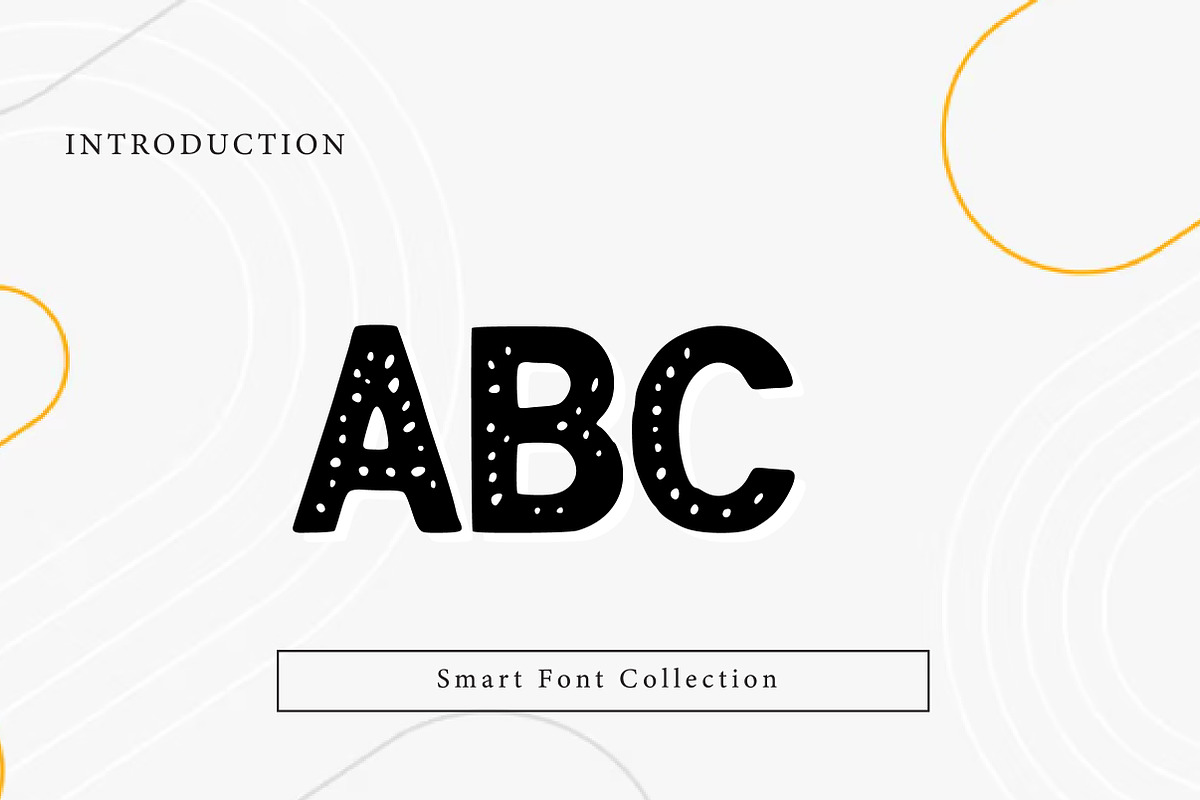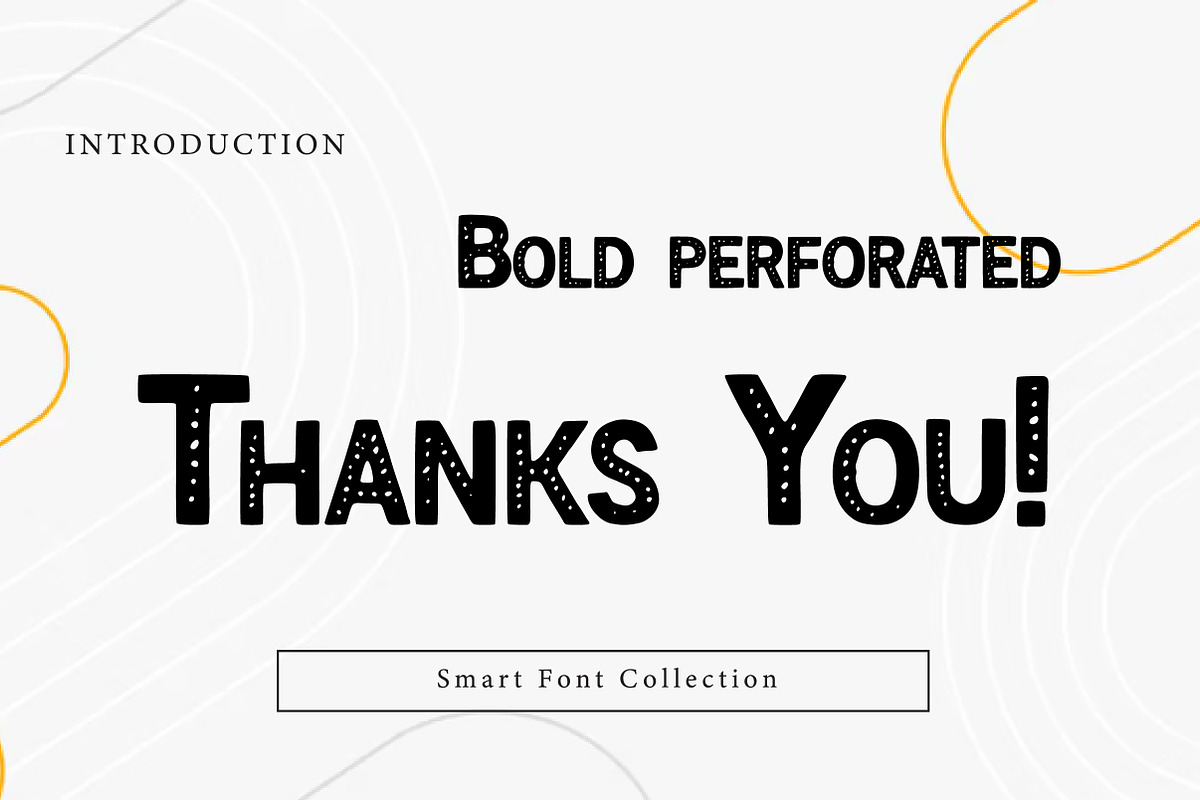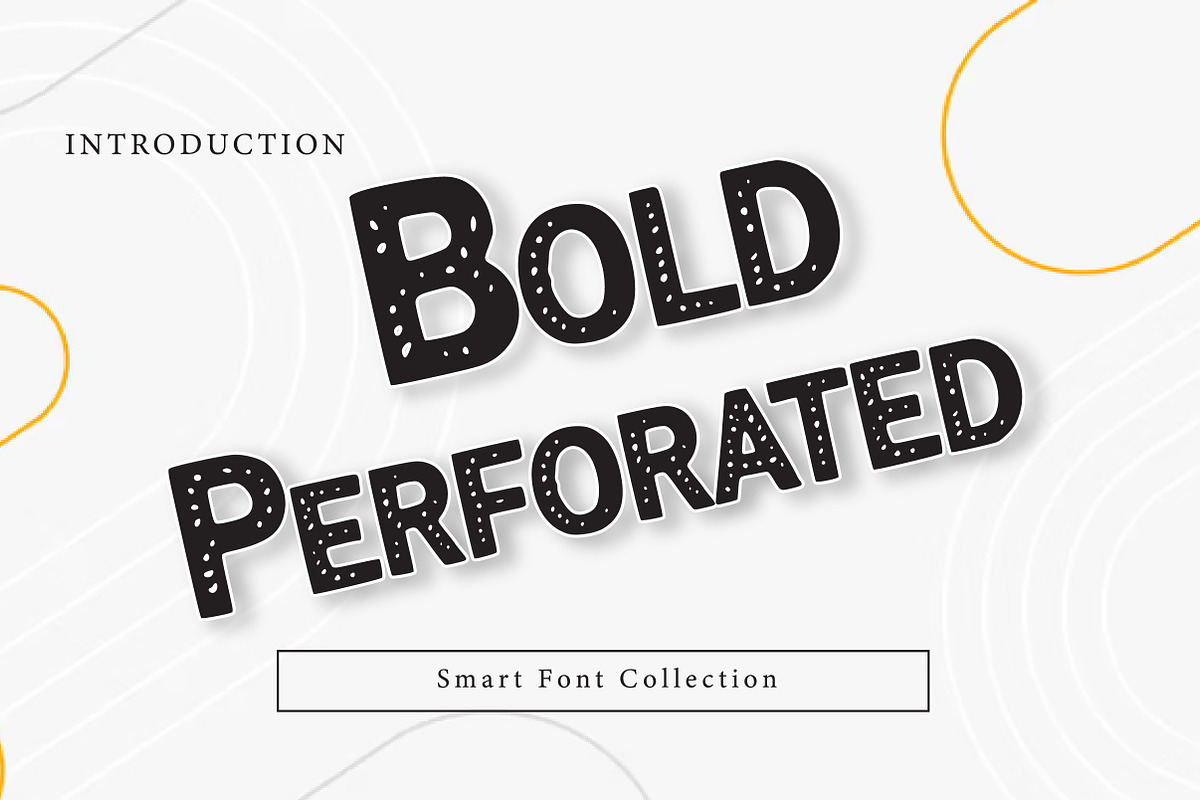
Bold perforated
Bold Perforated is a unique and eye-catching display font designed with a bold structure and a distinctive perforated texture effect. Its dotted, punched, and cut-out style gives the typeface a playful industrial feel—perfect for creating designs that look stamped, printed, retro, and handcrafted.
This font is ideal for designers who want something fun, bold, and highly visible while adding a creative texture element. The perforated details make it perfect for projects that need a vintage label look, packaging typography, poster headlines, product branding, signage, crafts, and DIY-style graphics.
Whether you're designing a logo, title, or bold typography for social media, Bold Perforated brings a strong character and textured personality to your work. It works especially well in large sizes, where the perforation effect becomes more noticeable and adds extra charm. This typeface is great for both digital and print use and fits perfectly in modern, retro, industrial, and experimental design styles.